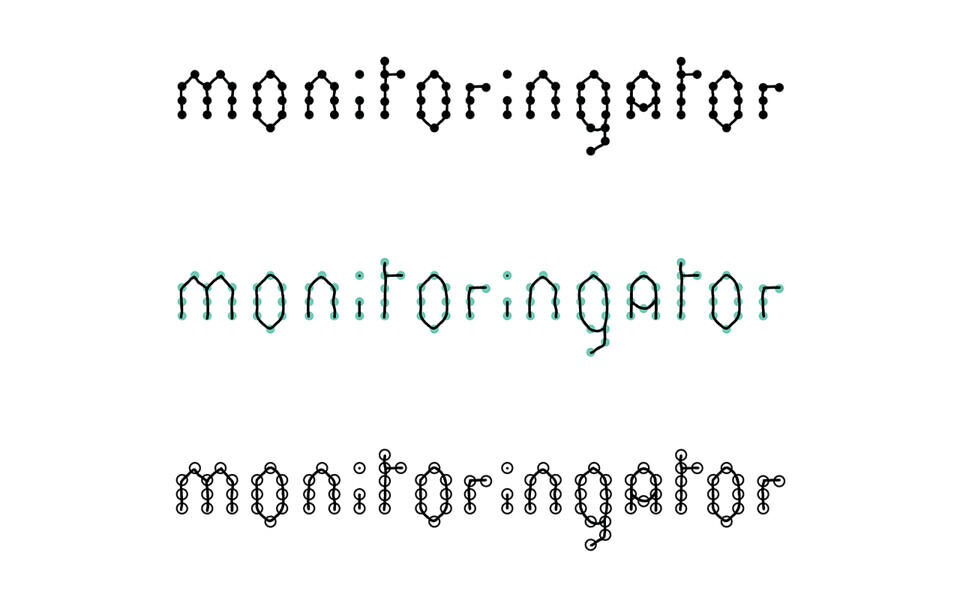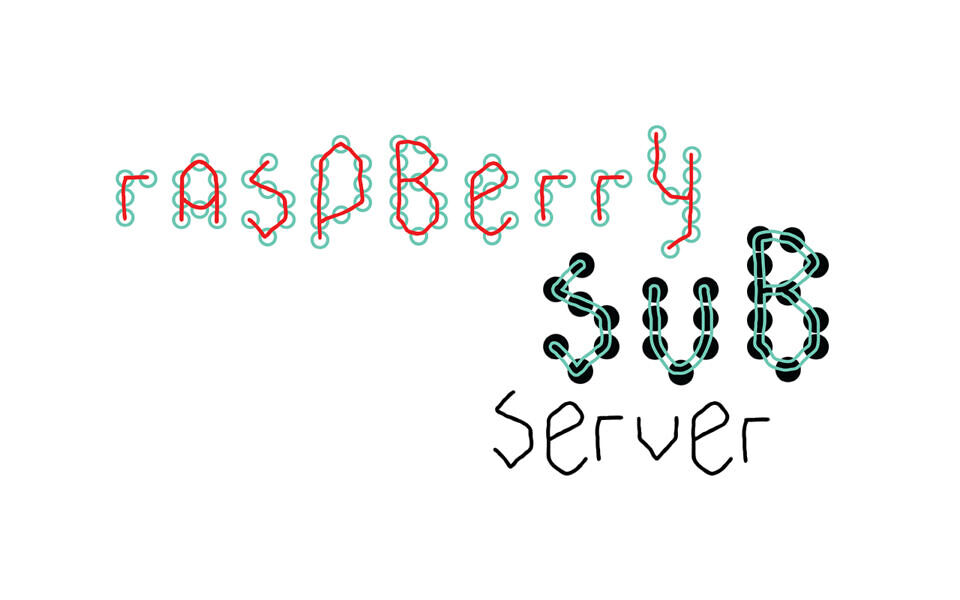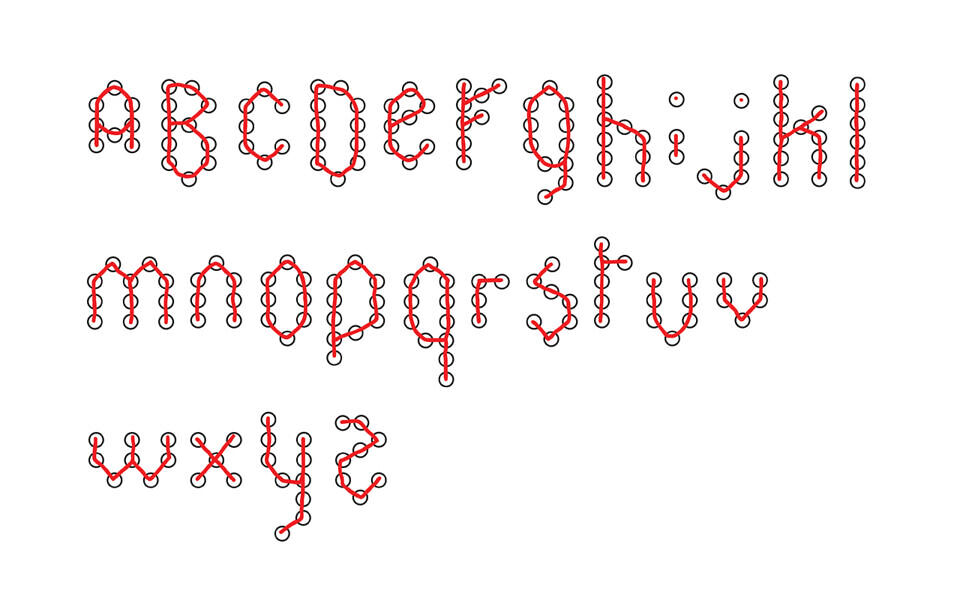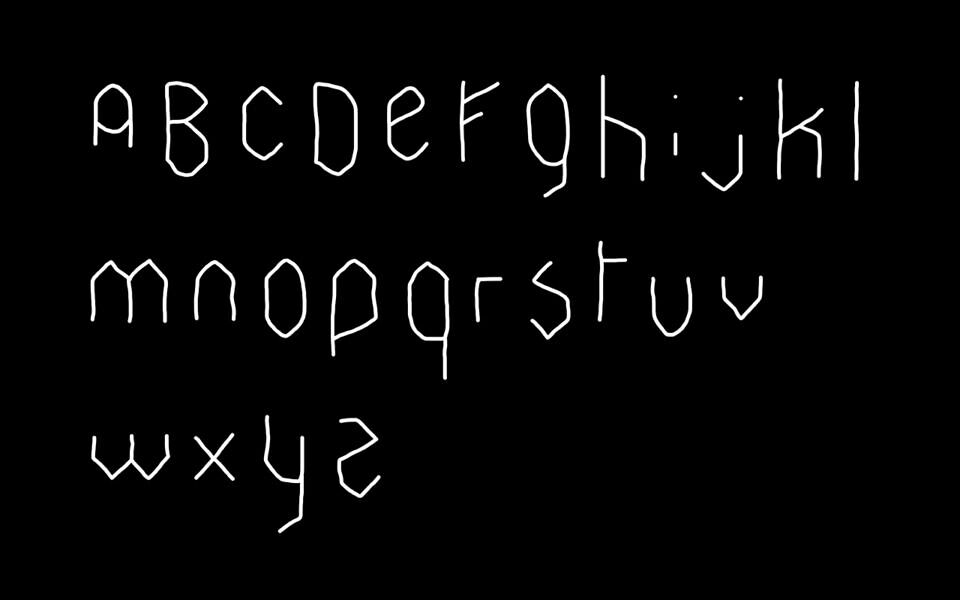
Monitoringator is a dotted font designed with a dotted mode and a wired mode. You can apply the wired mode on the dotted mode to have an alphabetical wired board style.
The font is inspired by numeric and analogic signals as morse code. It’s half geometrical, half a scripting typo you can design wires with, to make frames or canvas for decorative purpose.